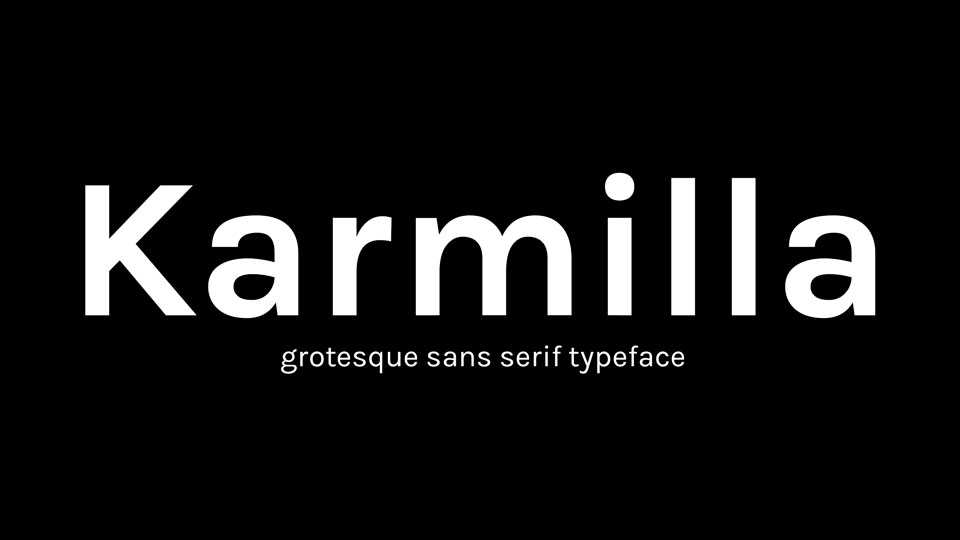
Download Karmilla typeface, an expanded version of Karla, an outstanding grotesque sans serif font family created by Jonathan Pinhorn, with extended language support.
Designer: Manuel Schmalstieg